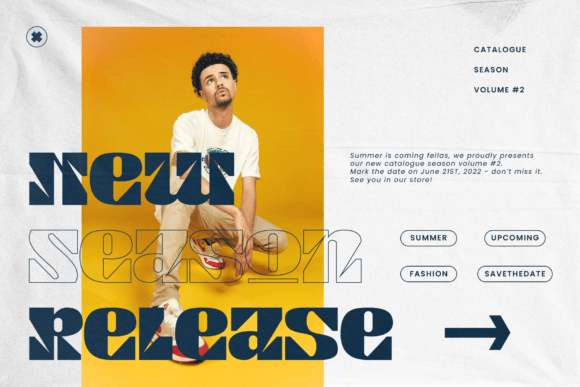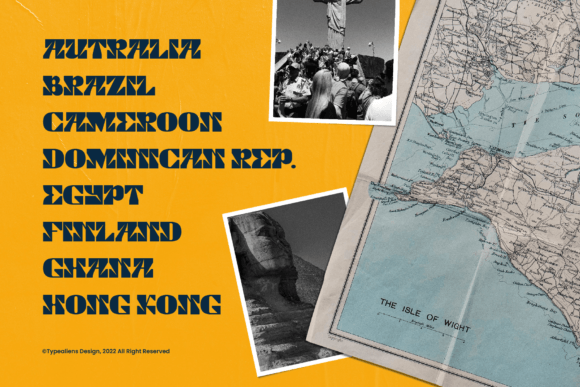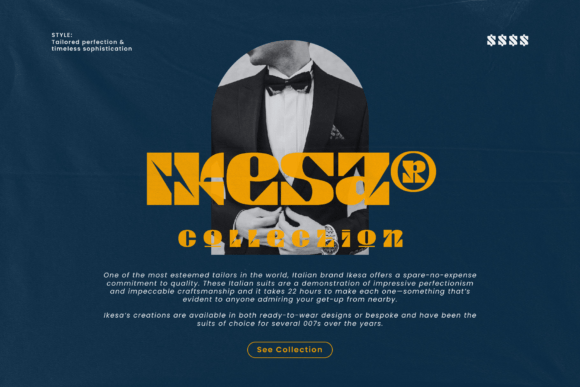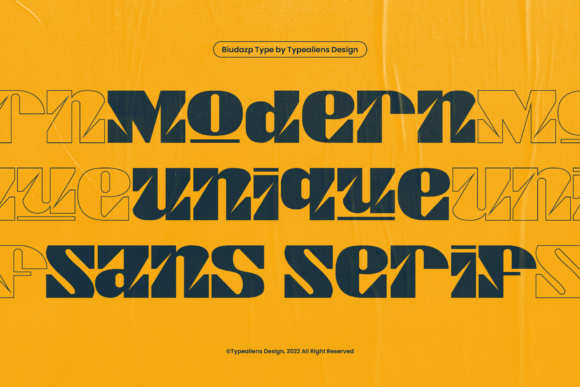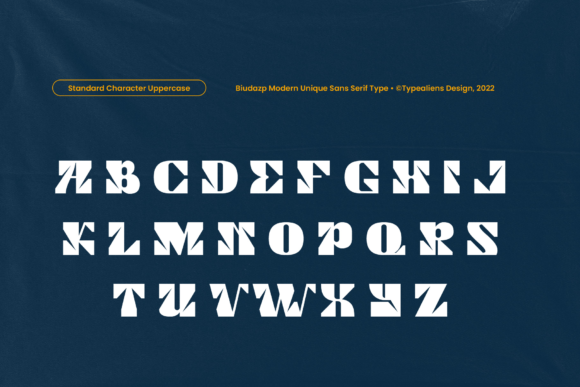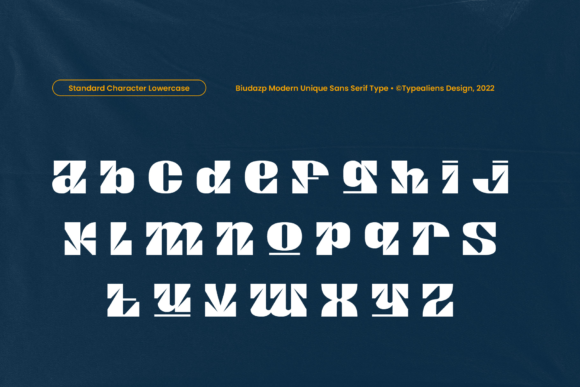
Unlock the Power of Modern Design with the Biudazp Font
As a creative person, have you ever stared at a blank canvas, waiting for inspiration to strike? The moment when the perfect idea finally hits, and you know exactly how to bring it to life – it’s a feeling like no other. For designers, this moment is often the result of choosing the right tools, like a well-crafted font that elevates their work.
Enter the Biudazp Font, a modern sans serif font designed to make a statement. Its unique style and clean lines make it perfect for contemporary designs, from logos and branding to digital interfaces and publications. By incorporating the Biudazp Font into your creative projects, you’ll capture the attention of your audience and leave a lasting impression.
Biudazp Font Key Features
- Font Family: Biudazp is a sans-serif font family designed by TypeType Foundry, with a wide range of styles and weights.
- Unique Characteristics: Biudazp’s distinctive design features include its geometric shapes, clean lines, and open apertures, making it a popular choice for modern designs.
Biudazp Font Review
I recently had the chance to work with the Biudazp Font, and overall, I’m impressed with its unique features. ✨ The font’s bold, futuristic style is perfect for projects that need a touch of edginess.
- ✨ Excellent for futuristic and sci-fi themed projects
- ✨ Supports a wide range of languages
- ✨ Available in various weights and styles
However, I encountered a few limitations that may affect its usability. ⚠️ The font’s readability can be compromised at smaller font sizes, and it may not be the best choice for body text or lengthy content.
- ⚠️ Readability can suffer at smaller font sizes
- ⚠️ May not be suitable for body text or lengthy content
Overall, I’d say Biudazp Font is a great addition to any designer’s toolkit, especially for projects that require a bold, futuristic aesthetic. While it may not be suitable for every project, its unique style and features make it a valuable resource.
Tips for Getting the Most Out of Biudazp Font
1. Use Biudazp Font for titles and headings to add a touch of elegance.
2. Pair Biudazp Font with other fonts for a unique and stylish look.
3. Experiment with different font sizes and styles to add depth and interest.